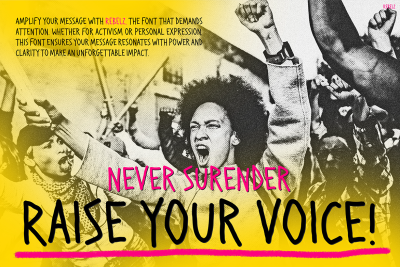
Music Font REBELZ is a bold and dynamic typeface that captures the raw, rebellious energy of punk culture. Its jagged lines and edgy hand-drawn style exude defiance and individuality. Furthermore, the fontโs unpolished, grungy look is perfect for designs that highlight underground creativity. Whether on music posters, album covers, or event flyers, REBELZ makes a striking statement.
The distressed, erratic letterforms create intense visual impact, making your message stand out. Additionally, its chaotic yet cohesive rhythm mirrors the punk spirit and street art culture. REBELZ isnโt just a typefaceโitโs a bold declaration. Therefore, it perfectly matches the DIY ethos and rebellious vibe of counter-culture movements.
What sets REBELZ apart is its versatility. While it is rooted in punk and alternative aesthetics, it can also be used in broader contexts where boldness and creativity are required. Its handcrafted appearance gives it a personal, authentic touch that resonates with audiences. No matter the medium, REBELZ ensures your message is heard loud and clear.
Music Font REBELZ Perfect For
REBELZ is ideal for creatives seeking to convey rebellion and individuality. Hereโs who benefits most:
- Music Event Organizers
For punk, rock, or alternative events, REBELZ brings raw energy to posters and promotional materials. Consequently, it helps attract the right audience for these events. - Indie Artists and Bands
Indie musicians can use REBELZ to reflect their bold sound on album covers, merchandise, and branding. Moreover, it ensures their visuals align with their unique musical identity. - Fashion and Streetwear Brands
Streetwear brands targeting edgy, youthful audiences will find REBELZ ideal for logos, tags, and prints. As a result, it helps them establish a strong, rebellious image. - Underground Event Planners
From art shows to skateboarding events, REBELZ sets the mood with its gritty, untamed energy. In turn, this makes their event branding unforgettable. - Graphic Designers
Designers needing an unconventional vibe can use REBELZ to push boundaries and amplify creativity. Furthermore, the fontโs unique style allows them to explore bold, daring concepts.
In conclusion, whether youโre evoking punk rockโs spirit or adding grit to modern designs, Music Font REBELZ is the ultimate choice for bold statements. Its striking look and versatile usage make it a must-have for projects that demand attention.